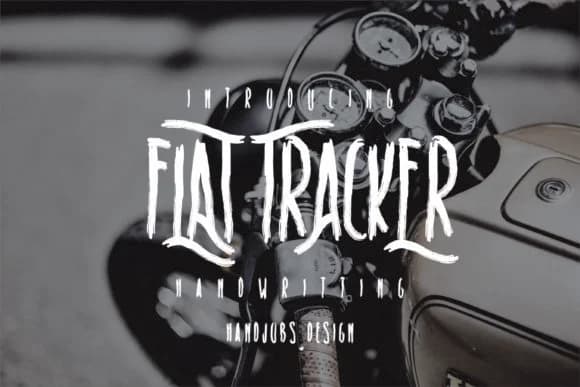
About Flat Tracker Font
Flat Tracker Font from Hdjs.design channels the visual language of motorcycle culture, where attitude and engineering blur into a single powerful statement. The letterforms lean forward with angular edges and dynamic weight shifts that evoke mechanical motion and raw energy. Every stroke suggests speed and precision engineered to last through hard use. This is a typeface built to command attention, not whisper quietly in the background.
The font thrives on motorcycle club graphics, racing event posters, custom garage signage, and automotive brand identities where straightforward attitude matters far more than decorative detail. Biker apparel labels, speed-shop merchandise t-shirts, and promotional flyers for car meets all benefit from its uncompromising directness. Equally at home on edgy product packaging for automotive suppliers and tool brands, the masthead of a ride-culture publication, or custom vehicle graphics where the viewer needs to instantly grasp that movement, independence, and engineering precision outweigh any softness or hesitation. It's the typeface for projects rooted in action and authenticity rather than ornament or trend.
Flat Tracker suits any designer working within motorcycle and automotive communities, as well as brands where grit and confidence form the beating heart of their identity. Find it on Creative Fabrica and bring that unmistakable motorbike energy to your next project.
Flat Tracker Font is a script font that shines as a display or heading face. Pair it with a clean sans-serif or serif font for body text β the contrast creates a clear hierarchy while the two styles stay balanced and easy to read.
Flat Tracker Font
by Hdjs.design